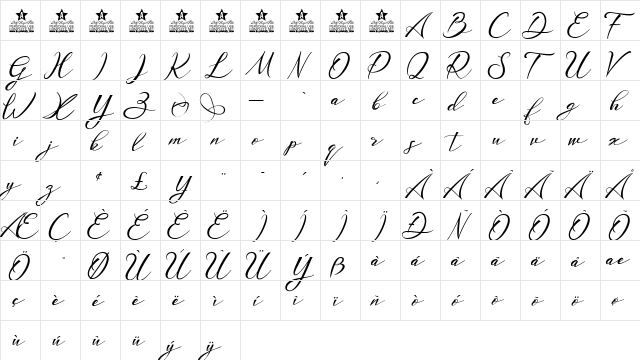
UNIVERSAL SCRIPT Personal Use Regular
| Foundry | Billy Argel |
| Designer | Billy Argel |
Design Context for UNIVERSAL SCRIPT Personal Use Typeface
UNIVERSAL SCRIPT Personal Use flows with the natural rhythm of handwritten lettering, making it ideal for designs that call for warmth and personal expression.